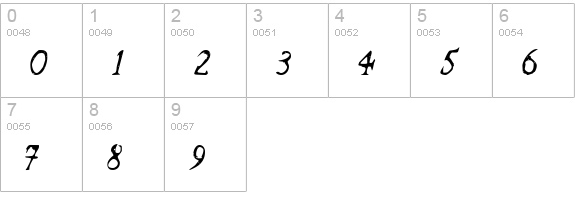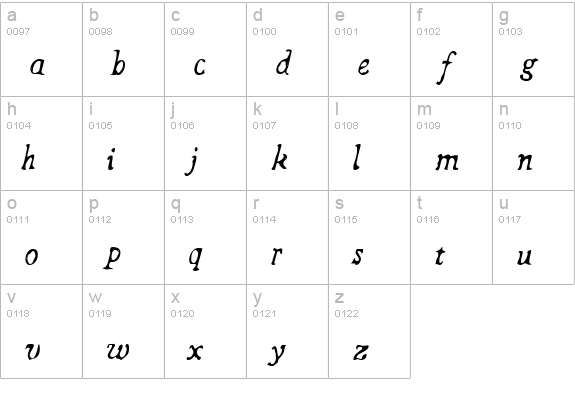
Forgotten Hospital is a hauntingly beautiful font that captures the eerie essence of abandoned medical facilities. With its distressed and worn appearance, this unique typeface exudes a sense of mystery and nostalgia. The jagged edges and irregular letterforms evoke a sense of decay and neglect, making it perfect for projects that require a touch of darkness and intrigue. Despite its haunting aesthetic, Forgotten Hospital is a versatile font that can be used in a variety of design projects, from gothic-themed posters to vintage-inspired branding. Its free availability at FontsMarket.com makes it easily accessible to designers looking to add a touch of the macabre to their creations. Download Forgotten Hospital today and unleash its eerie charm in your next design project.